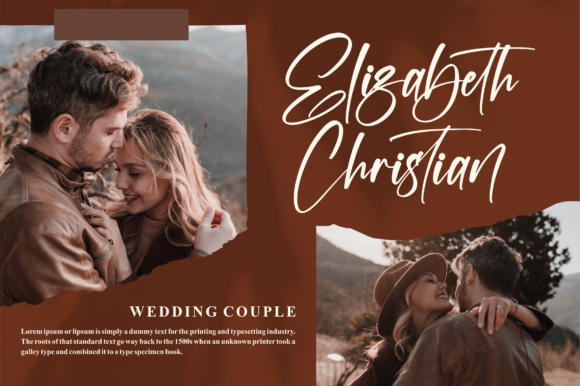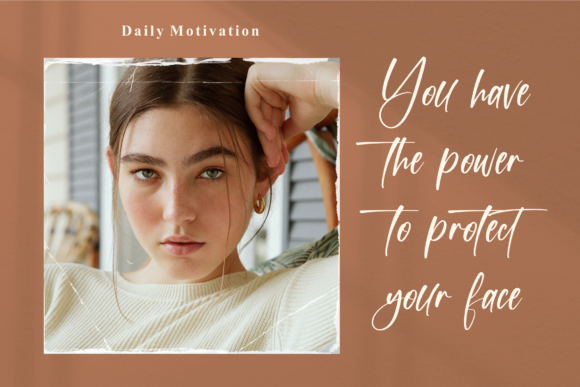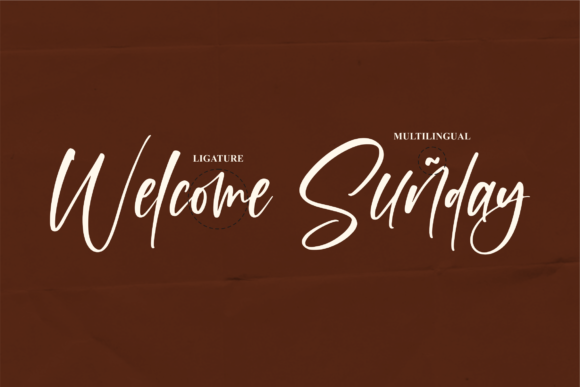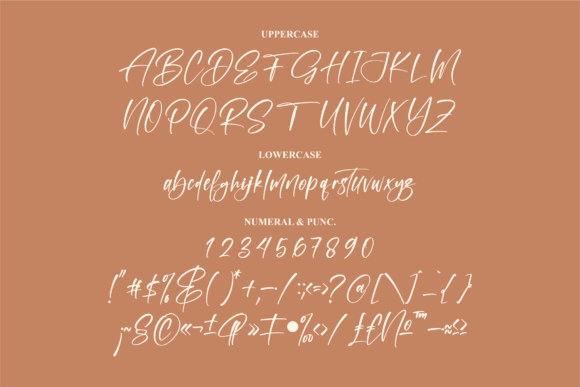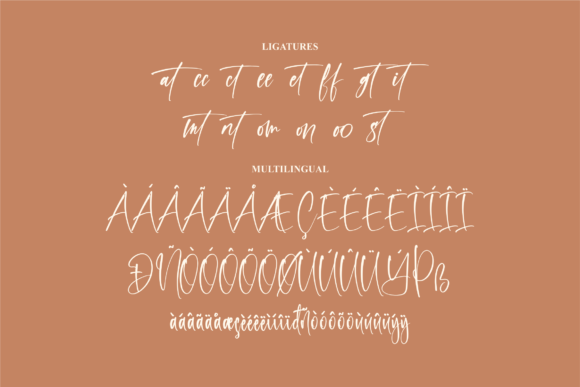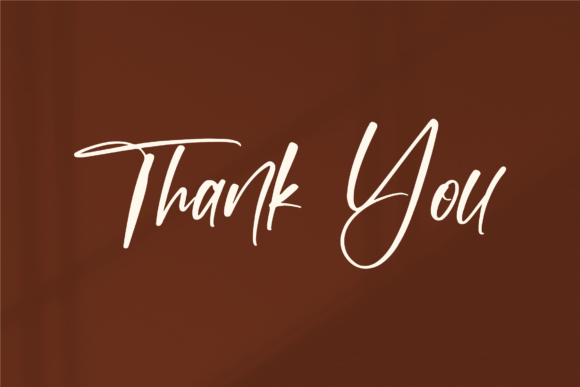
Silverstone Font
About Silverstone Font
Silverstone is a lovely script font featuring charming, brushed characters that seem to dance along the baseline. Add this font to your most creative ideas, and notice how it makes them stand out!